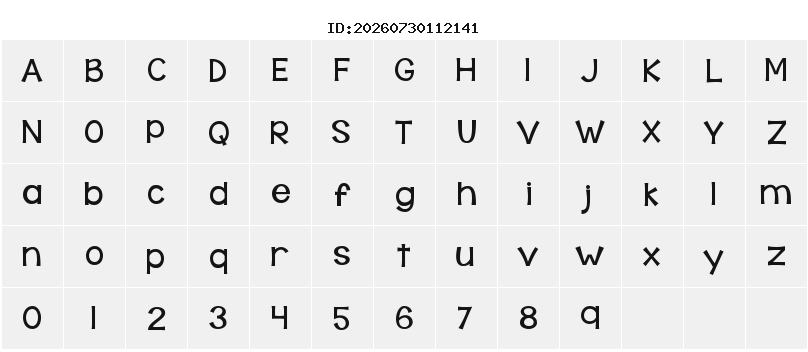
KG Behind These Hazel Eyes Preview
• Font Name: KG Behind These Hazel Eyes
• Full Font Name: KG Behind These Hazel Eyes
• Designer: Kimberly Geswein
• Manufacturer: Kimberly Geswein
About KG Behind These Hazel Eyes.ttf
KG Behind These Hazel Eyes.ttf is a modern, elegant sans-serif font designed for ultimate readability and visual harmony. Perfect for branding, headlines, web design, and print materials.